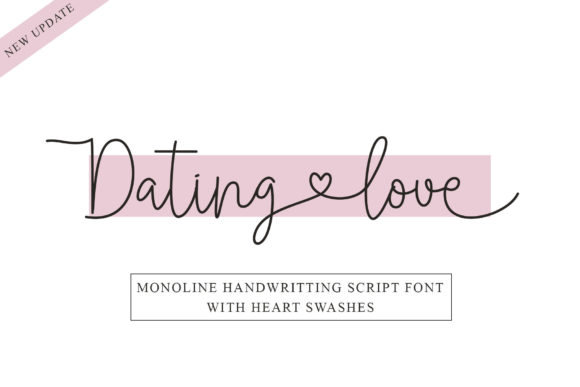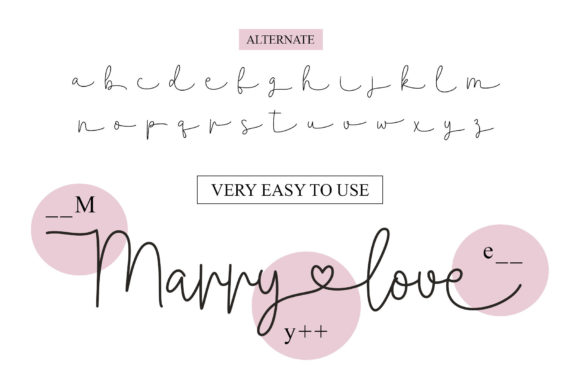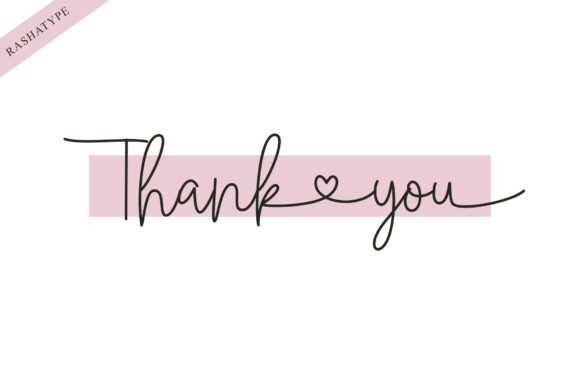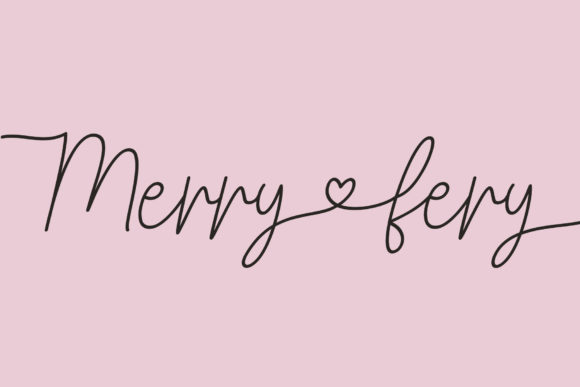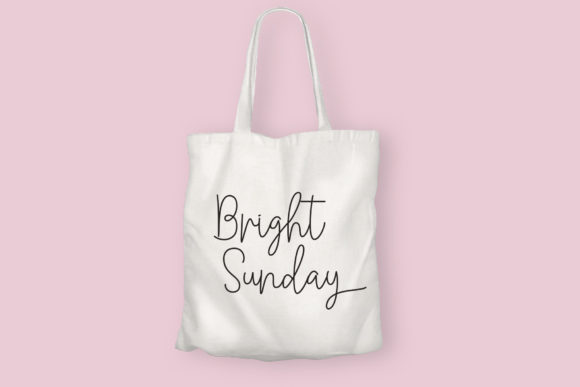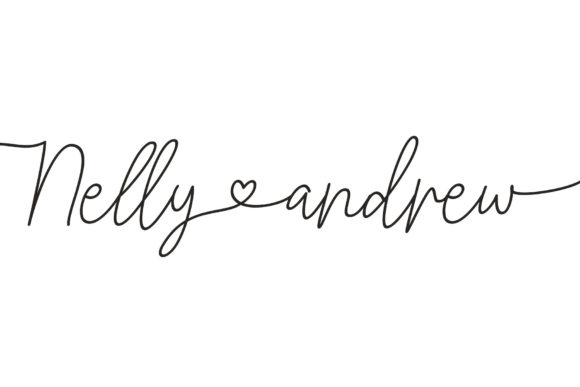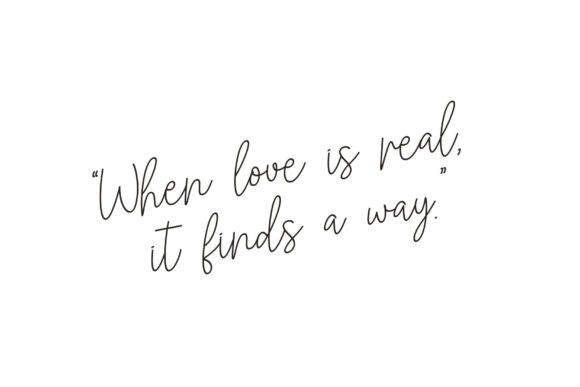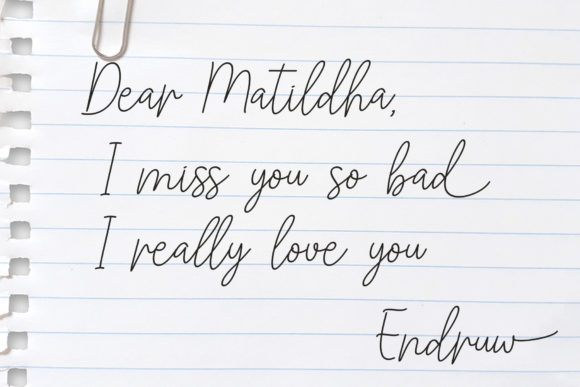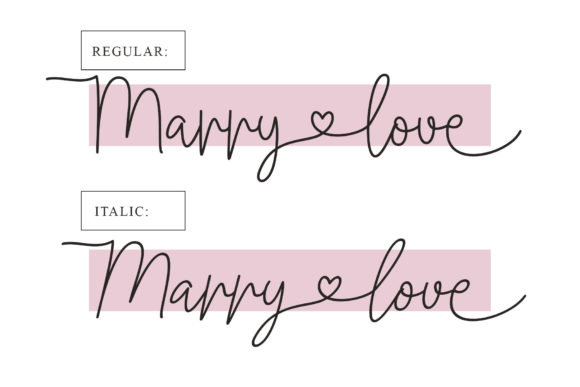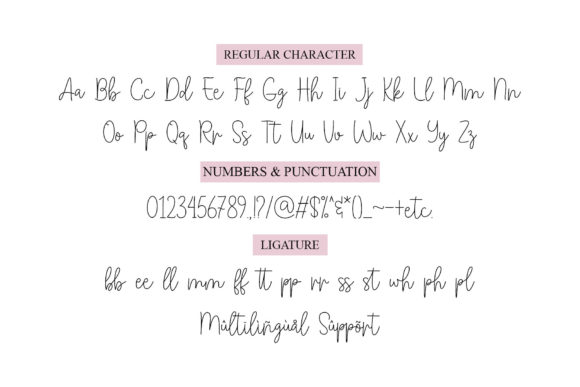
Dating Love Font
About Dating Love Font
Dating Love is a sweet and thin lettered script font. This font has simple love swashes that will make your text look beautiful. Dating Love is PUA encoded which means you can access all of the glyphs and swashes with ease!